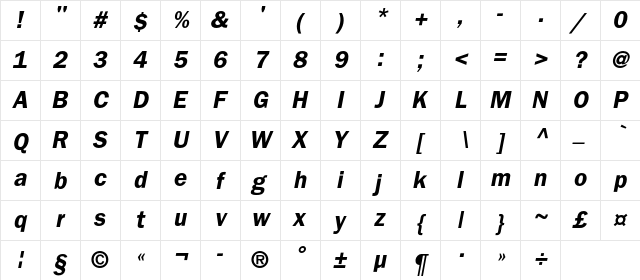
BloknotC Bold Italic Font Preview
BloknotC Bold Italic
Design Context for BloknotC Typeface
BloknotC takes a measured approach to typography — its balanced proportions and neutral character make it a reliable workhorse for both digital and print work. Its italic angle brings a sense of urgency and motion to the letterforms. The heavy weight commands attention and anchors typographic hierarchies.
Pro Tip: Use BloknotC for emphasis, pull quotes, and subheadings where its slanted energy can add rhythm to the layout.